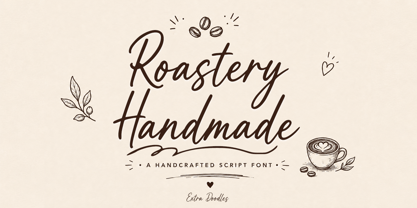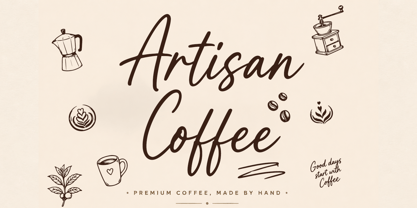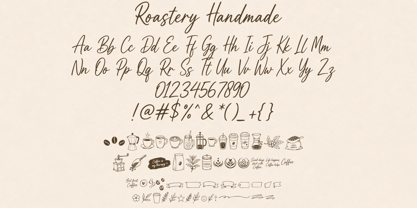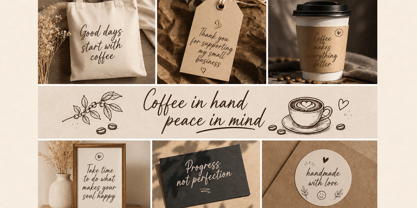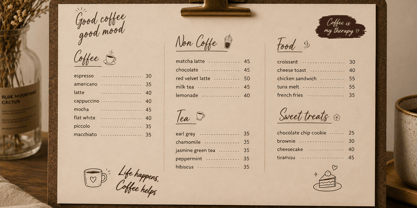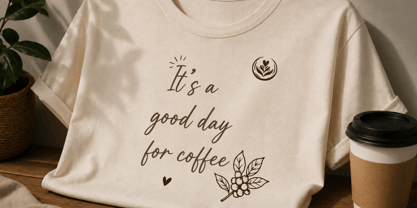
Roastery Handmade
The Roastery Handmade Font Family was designed by Muhammad Zaini and published by Cocodesign. Roastery Handmade contains 3 styles and family package options. More about this family
Roastery Handmade is a warm and elegant handwritten script font that features a natural flow and smooth curves. This font is designed to evoke a cozy, authentic, and modern handcrafted feel, making it ideal for a variety of applications such as branding, logos, packaging, café menus, product labels, social media, wedding designs, quotes, and creative projects. With its clean brush-style strokes and stylish character connections, Roastery Handmade delivers a friendly yet premium appearance that is both timeless and versatile. The included doodle elements provide an extra charming touch, enhancing the uniqueness and expressiveness of your designs.